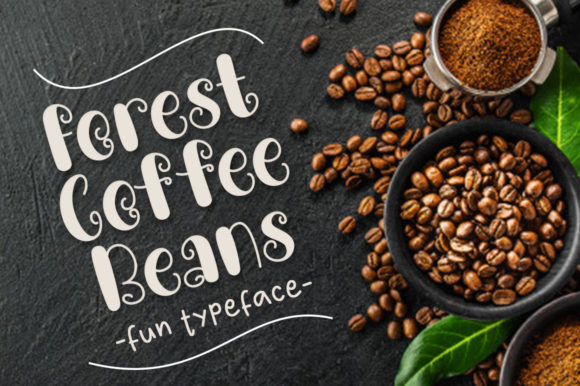
Introducing Forest Coffee Beans Font: Your Gateway to the World of Imagination
In the realm of creativity, where ideas flourish and dreams take flight, there exists a font that captivates the senses and ignites the imagination. Forest Coffee Beans Font, a display font crafted with meticulous precision, is a beacon of inspiration that will transform your creations into extraordinary masterpieces.
With its cool, whimsical, and utterly charming design, Forest Coffee Beans Font possesses a unique ability to make your words dance off the page. Every letter, carefully shaped and adorned with intricate details, carries within it a spark of magic that will leave readers spellbound.
Journey Through an Enchanted Forest
Immerse yourself in the enchanting world of Forest Coffee Beans Font and let your imagination run wild. Picture a forest teeming with life, where trees whisper secrets, and creatures of wonder roam freely. This font will transport you to a place where anything is possible, where dreams become reality, and where stories take on a life of their own.
A Symphony of Creativity
Forest Coffee Beans Font is a versatile performer, lending its charm to a myriad of creative endeavors. Whether you're designing eye-catching posters, crafting enchanting invitations, or creating whimsical social media graphics, this font will elevate your work to new heights.
Your Words, Unforgettable
With Forest Coffee Beans Font, your words will leave an indelible mark on the minds of your audience. Its unique design ensures that every message you convey is imbued with personality and flair. Whether you're sharing a heartfelt story, promoting your business, or simply expressing yourself, this font will make your words shine.